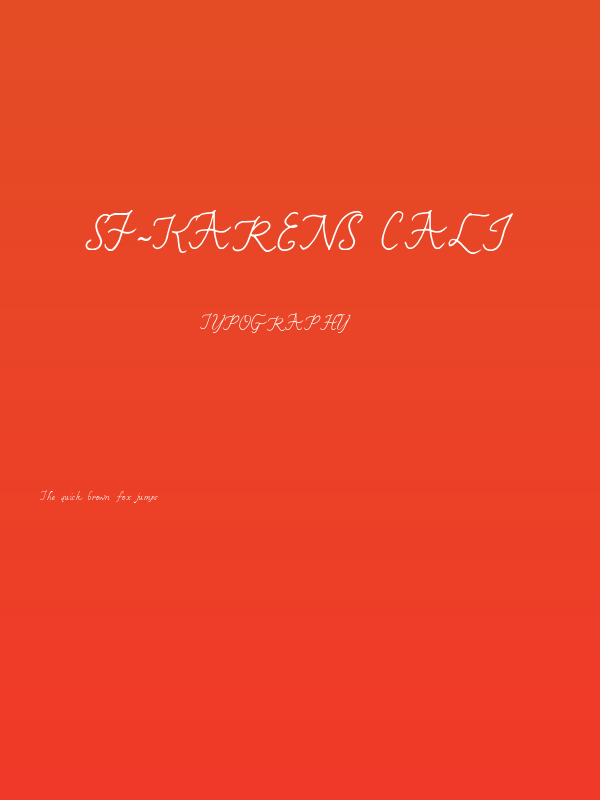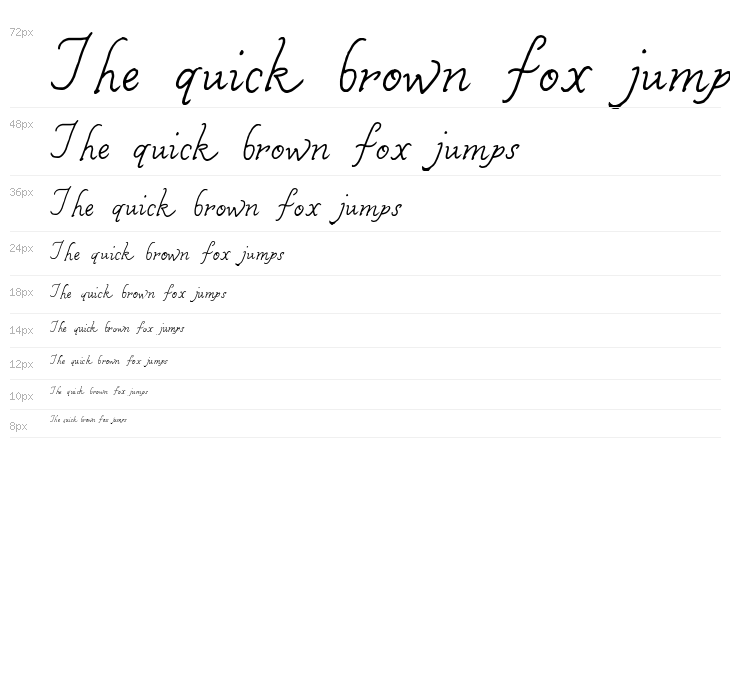
SF-Karens Cali Font
SF-Karens Cali Description
This elegant script font features a flowing, cursive style with graceful curves and loops. The uppercase letters are ornate, with sweeping ascenders and descenders that give a sense of movement and fluidity. The lowercase letters maintain a consistent style, complementing the uppercase with their own subtle flourishes. The numerals are distinct yet harmonious with the overall design, while the special characters add a touch of sophistication. This font exudes a sense of elegance and refinement, making it suitable for formal and decorative applications.
| Overall Style | Elegant, Decorative |
| Use Case | Invitations, Branding, Decorative Text |
| Proposed Projects | Ideal for wedding invitations, elegant branding, greeting cards, and decorative signage. |